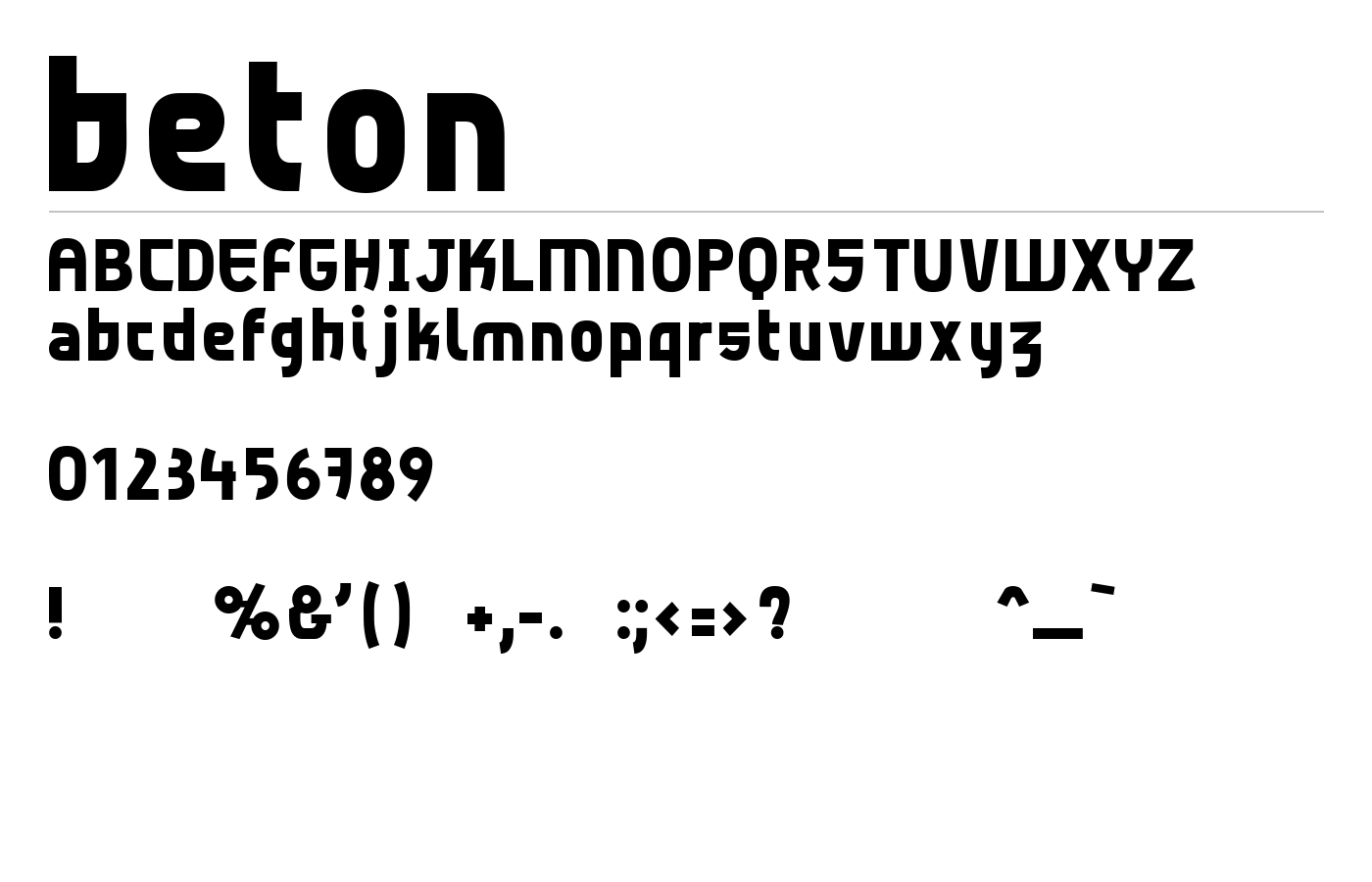
Beton is a bold, geometric sans serif font with a sturdy, industrial feel. Its strong vertical lines, squared shapes, and unique letterforms give it a modern yet rugged personality, making it ideal for branding, headlines, and designs that require a confident and impactful presence. This font works well where clarity and boldness are key, such as in posters, packaging, and logos.
beton Font